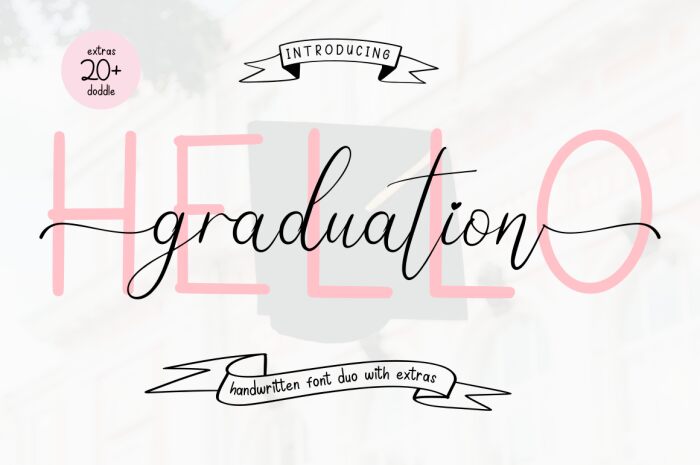
Hello Graduation Sans
Hello Graduation Sans is a delightful handwritten font that adds a touch of whimsy to any project. Designed by Rissyletter Studio, this semi-light typeface exudes charm and elegance. Its flowing strokes and playful curves make it perfect for invitations, greeting cards, and wedding stationery. With its easy readability and unique style, Hello Graduation Sans also shines in branding projects, highlighting your brand's personality with a hint of sophistication. Whether you're designing advertisements or creating social media graphics, this font will make your content stand out while captivating your audience.